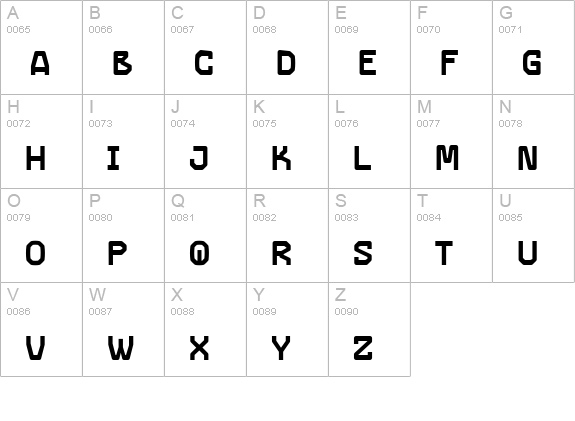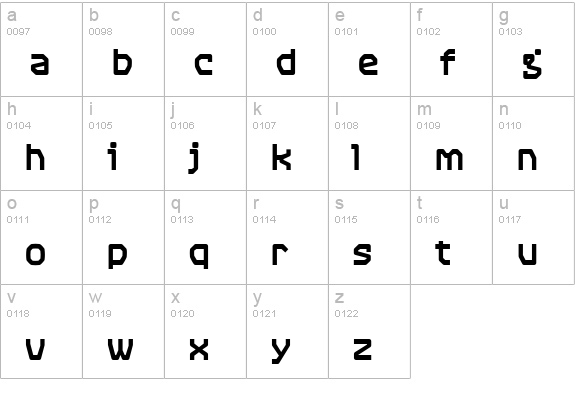
RangeExtraBold Font Details
RangeExtraBold is a striking and commanding font that exudes strength and boldness in every character. With its thick lines and powerful presence, RangeExtraBold is perfect for making a statement in headlines, titles, and logos. The font's modern and stylish design gives a contemporary edge to any project, while its extra bold weight ensures maximum impact. What makes RangeExtraBold even more appealing is that it is available for free download at FontsMarket.com. This means you can easily access this eye-catching font to enhance your designs without any cost. Whether you're looking to add a touch of boldness to your branding or make a statement with your typography, RangeExtraBold is the perfect choice for all your design needs. Download it now and unleash the power of bold typography in your projects!